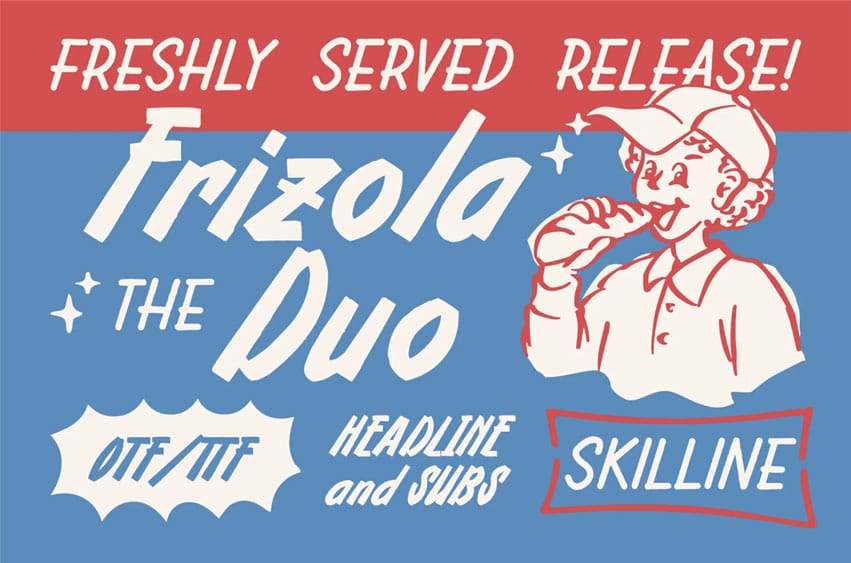
Frizola Font is a playful handwritten display font family featuring two complementary styles that work beautifully together. The bold Regular style creates eye-catching headlines, while the softer Sub style is perfect for supporting text, taglines, menus, packaging, and promotional graphics.
Inspired by mid-century food advertising, vintage signage, and nostalgic storefront lettering, Frizola delivers an authentic handcrafted feel while remaining clean, highly readable, and versatile.
- Duo Typeface (Regular & Sub)
- Handcrafted Brush Texture
- Playful, Friendly & Retro Character
- Complete Uppercase, Lowercase, Numerals & Punctuation